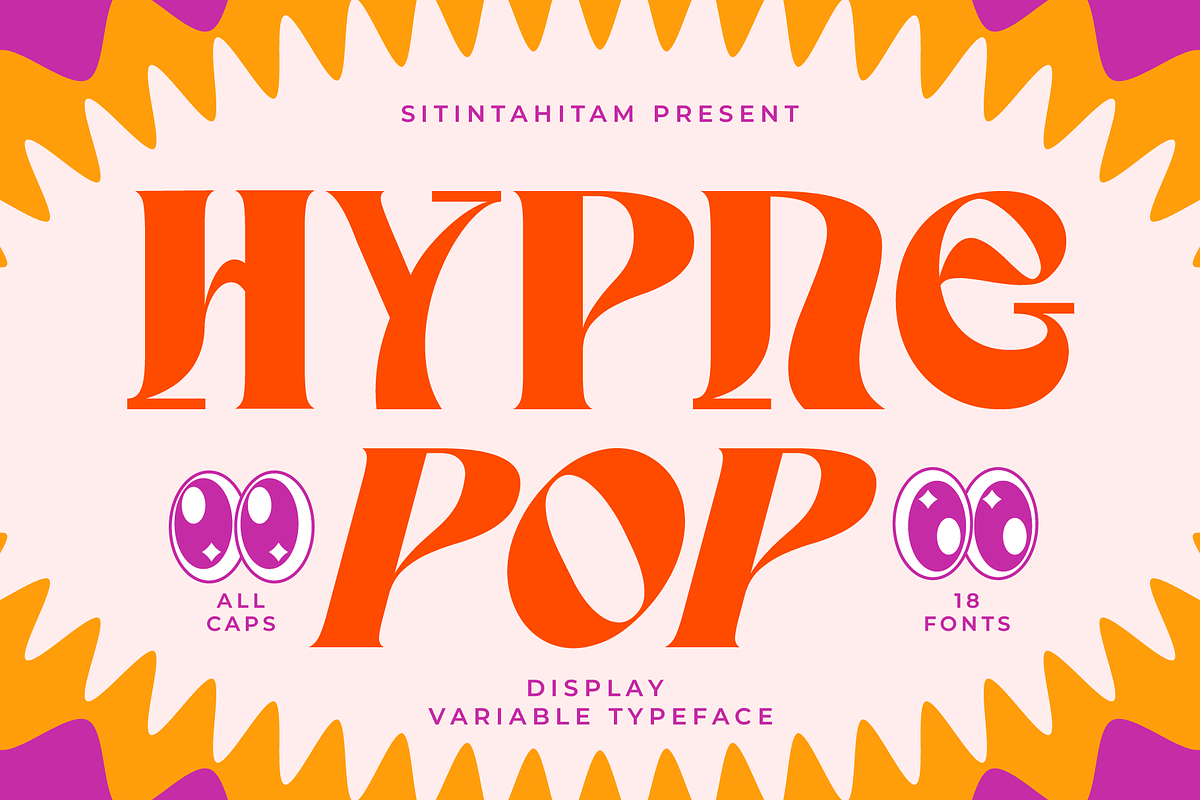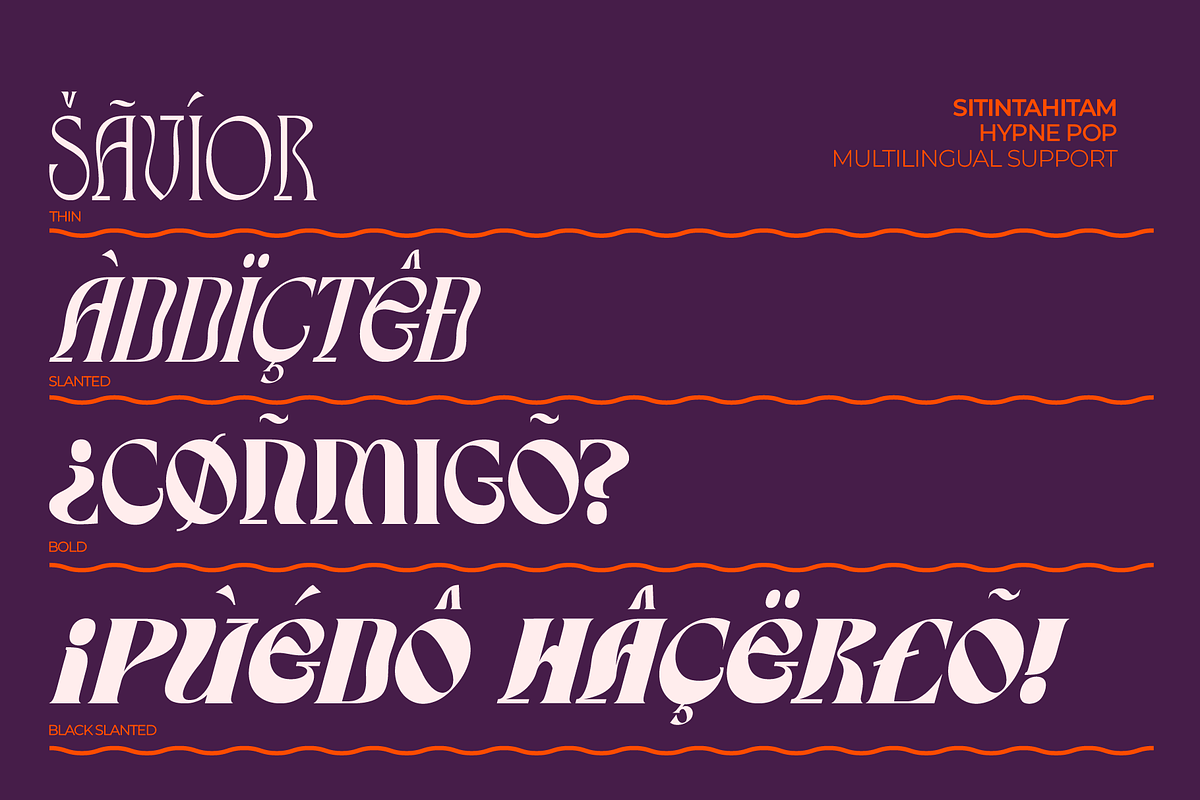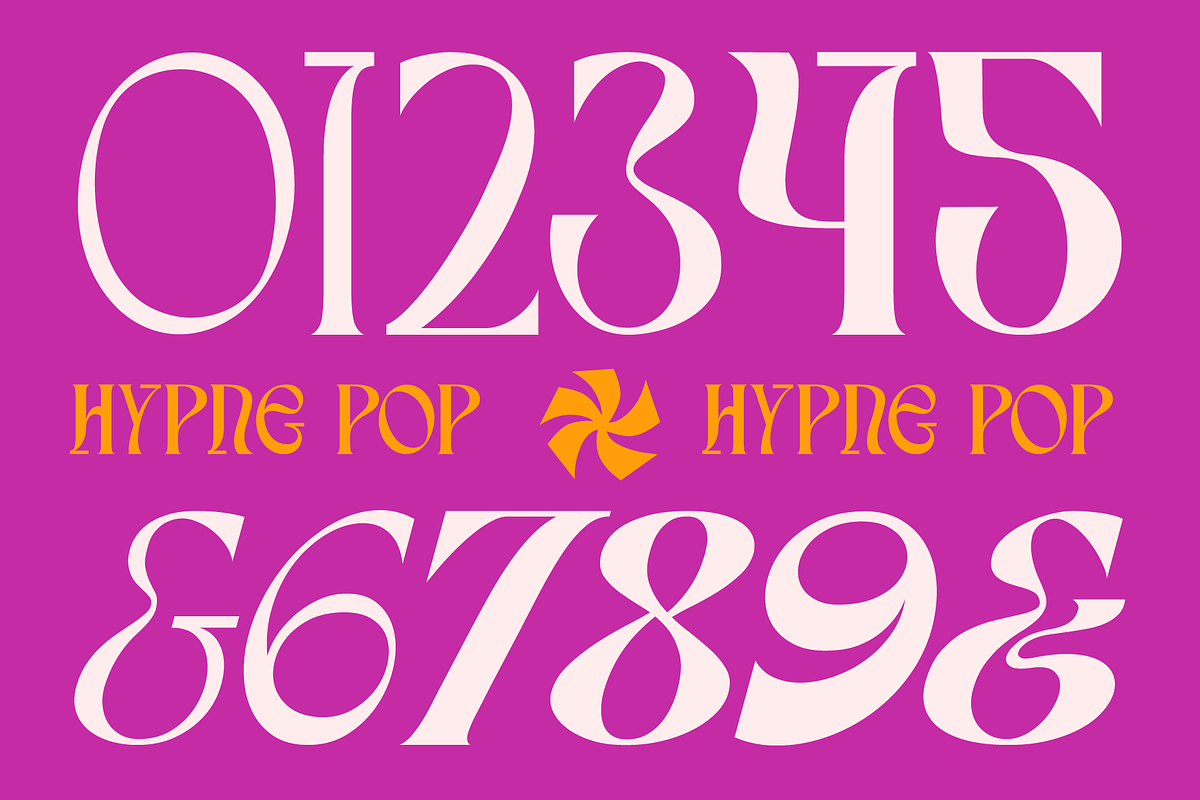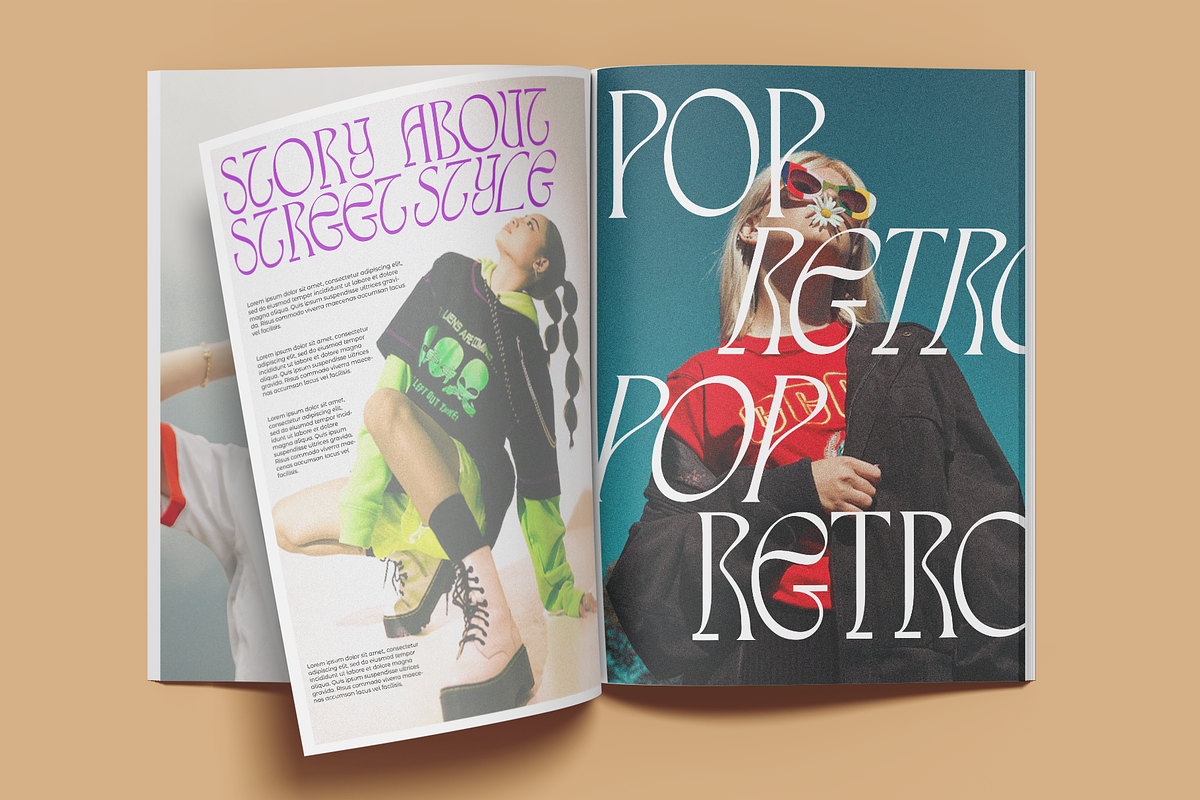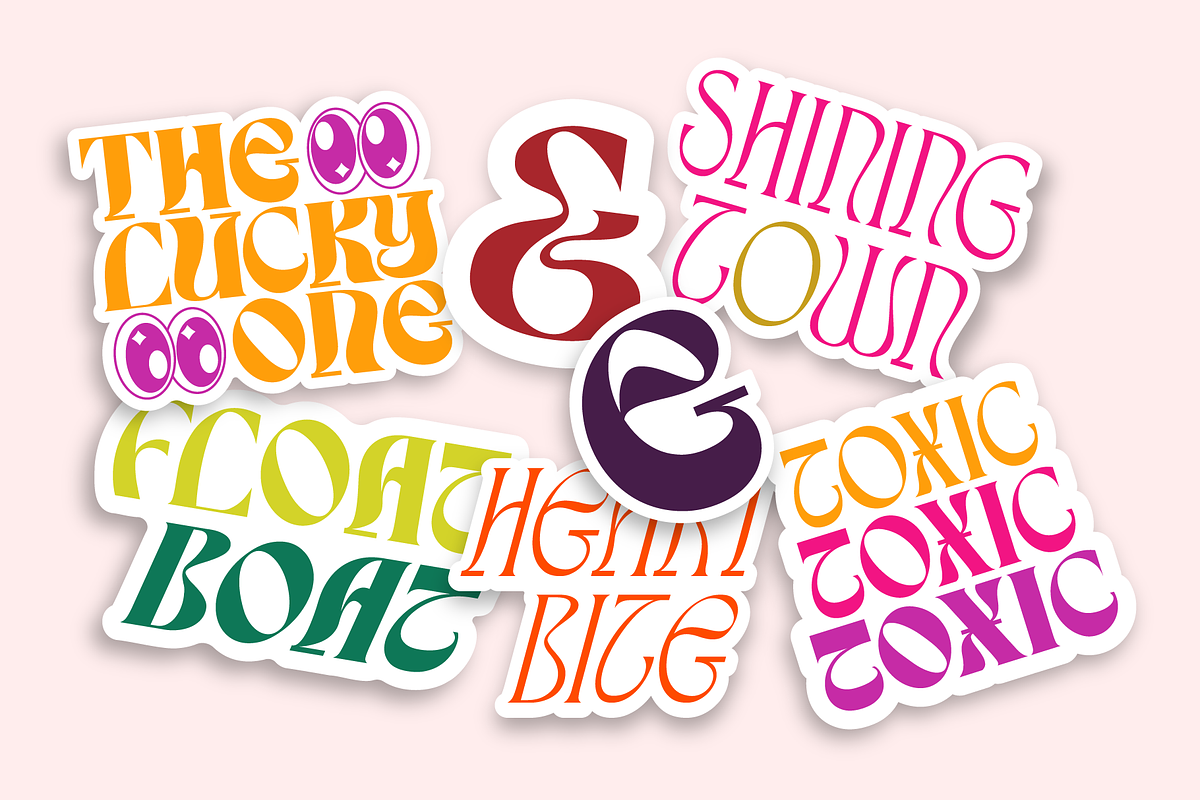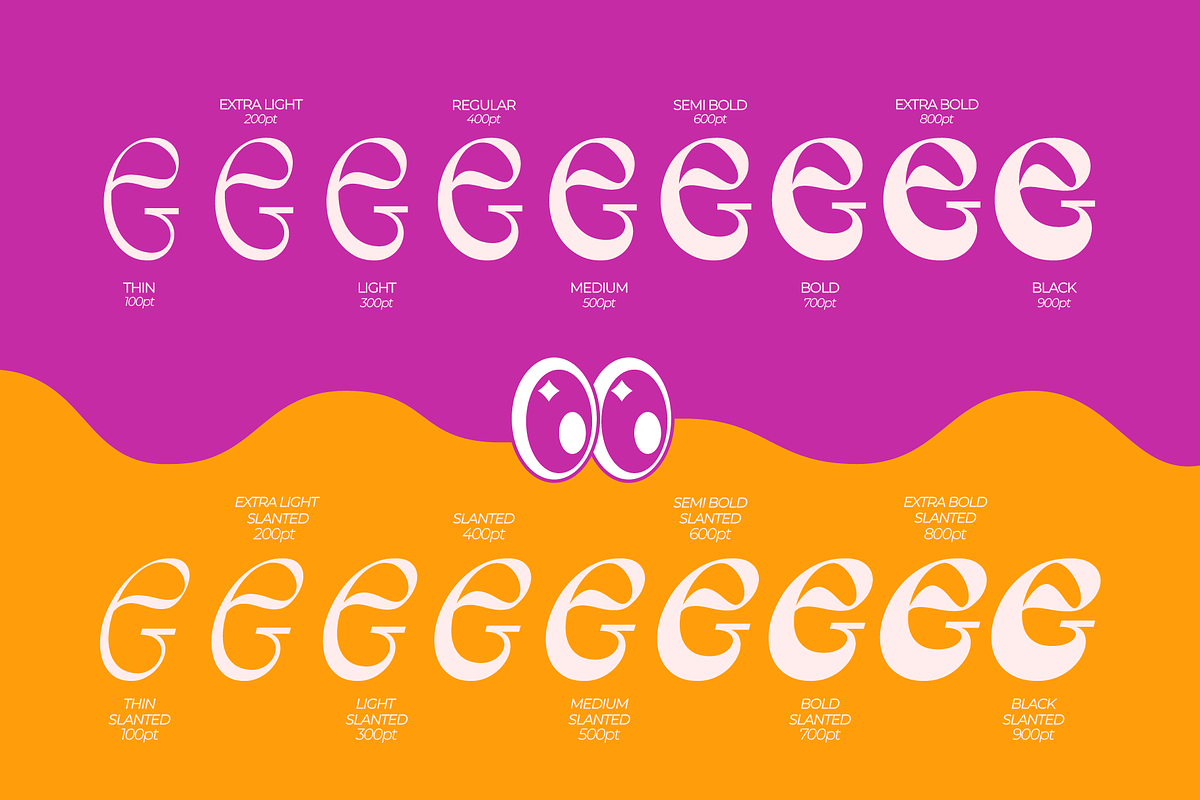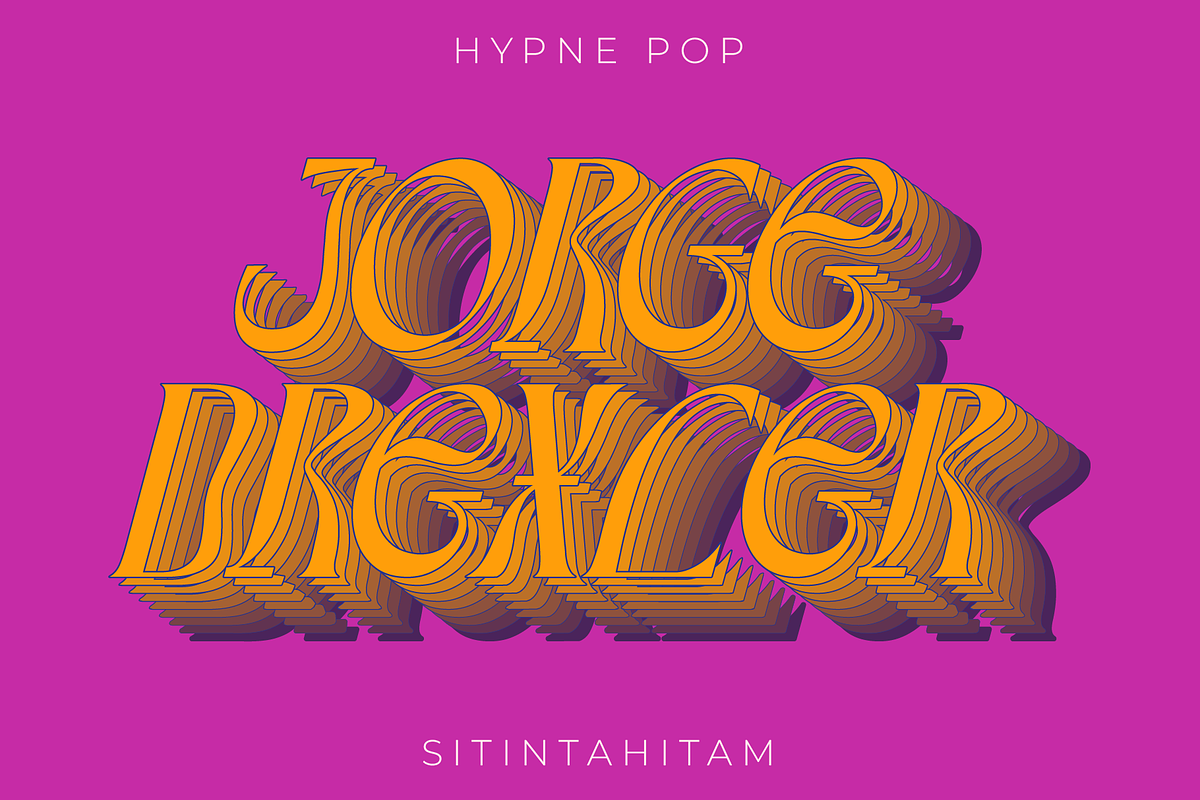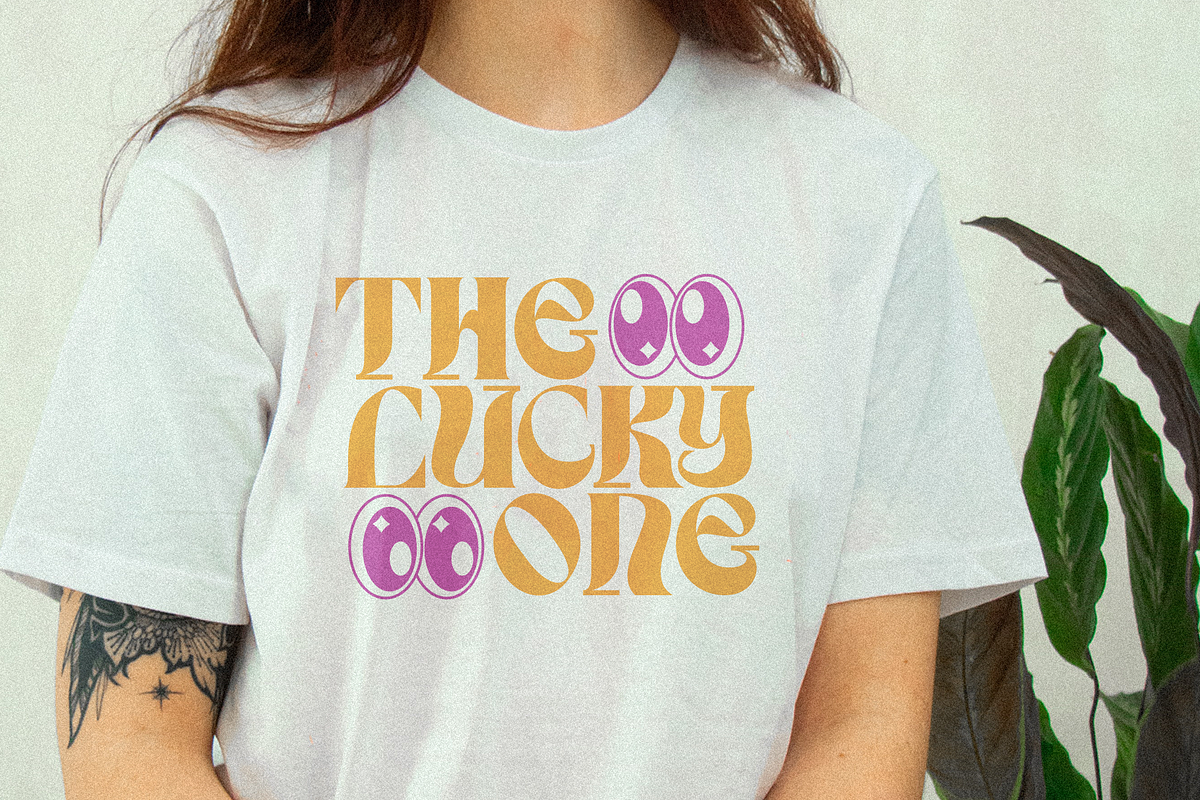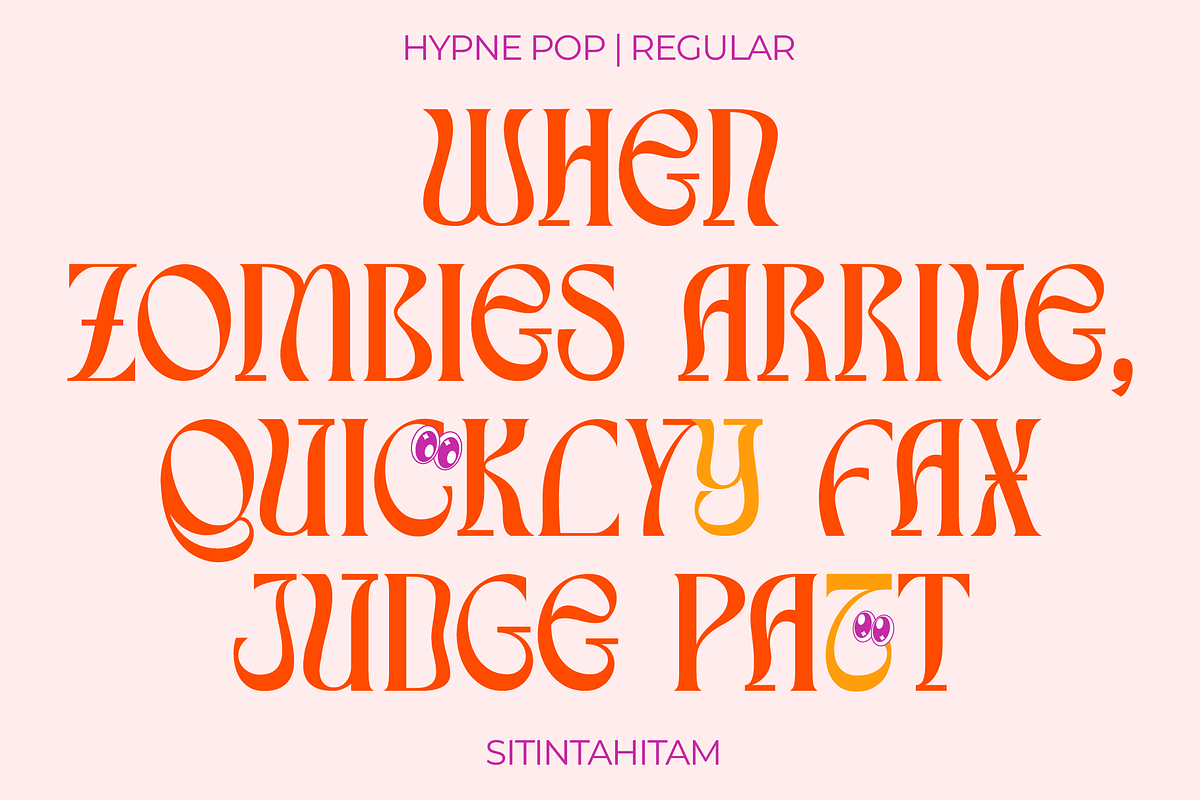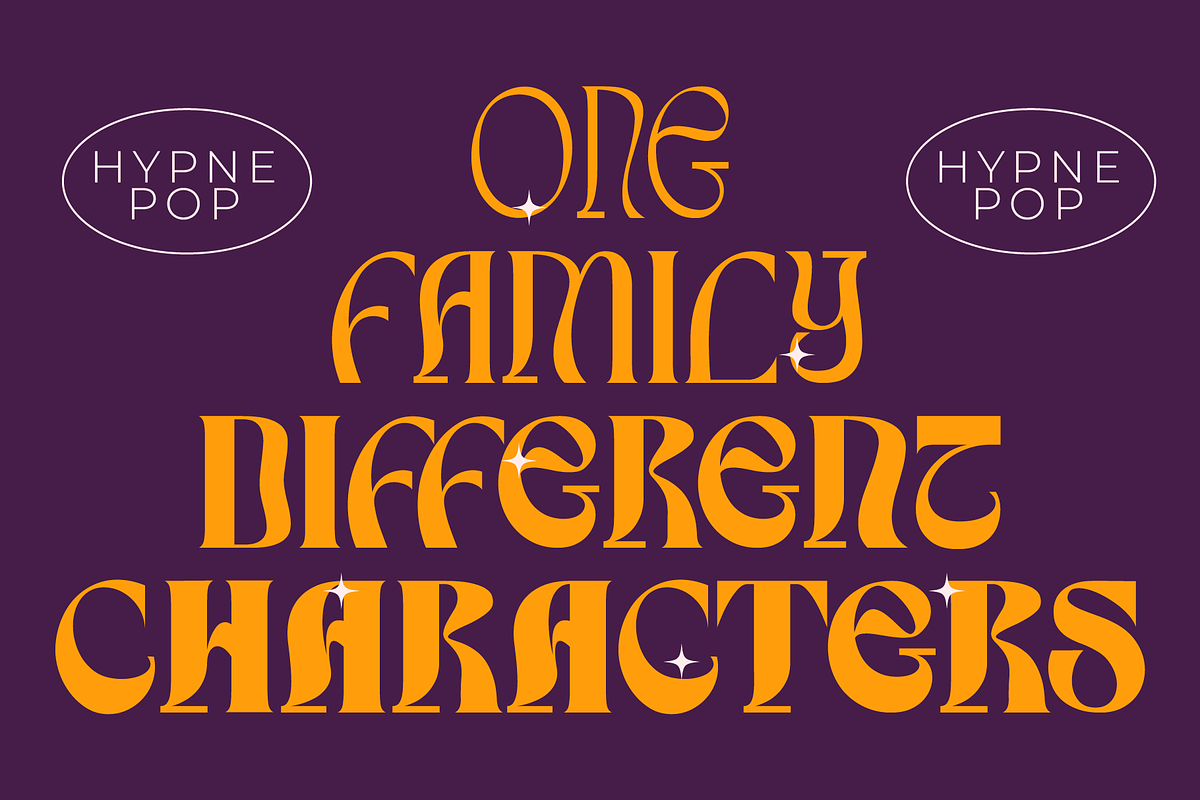
Hypne Pop Display Font
Hypne Pop is inspiring by retro pop culture, groovy, and funky. Hypne Pop comes with 9 weight unique regular and unique slanted style, this font also included Variable Font. So you can adjust the size according to the weight of this font according to a certain variable range using software like Adobe. Hypne Pop have a different characters in every style. This font also suitable for making headlines, stickers, T-shirt design, logotypes, poster, magazine, etc.